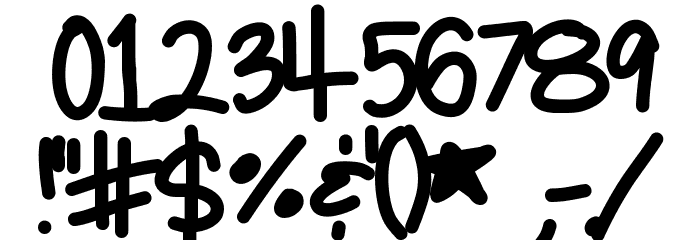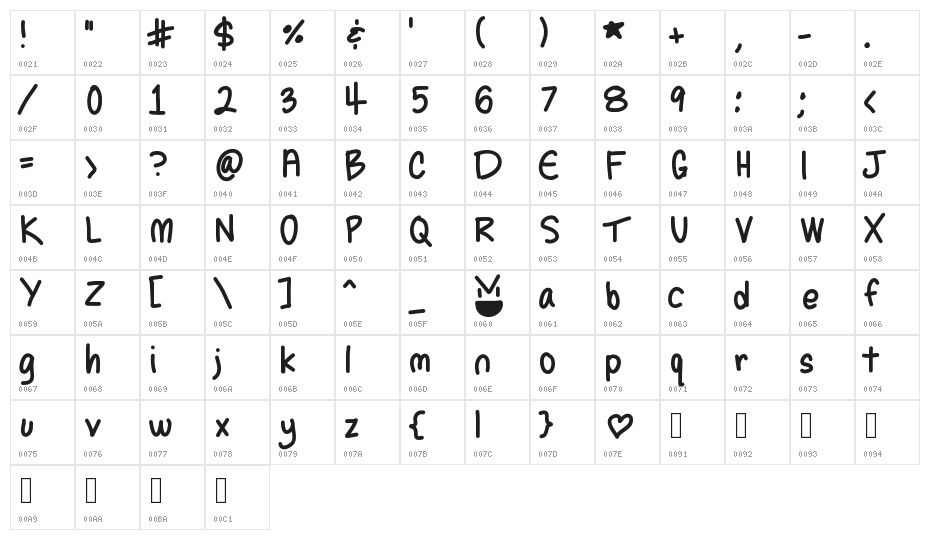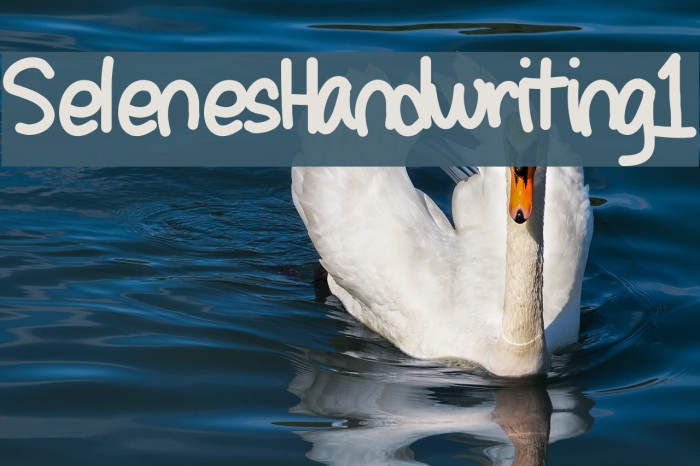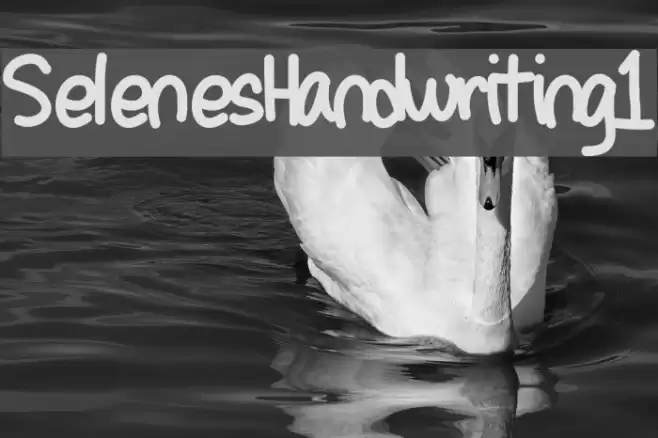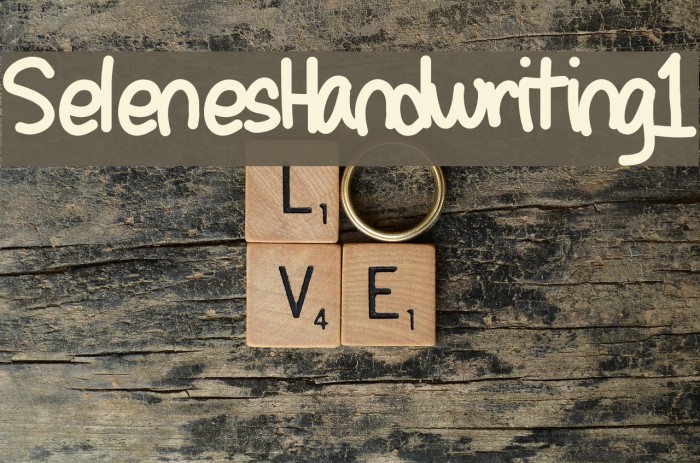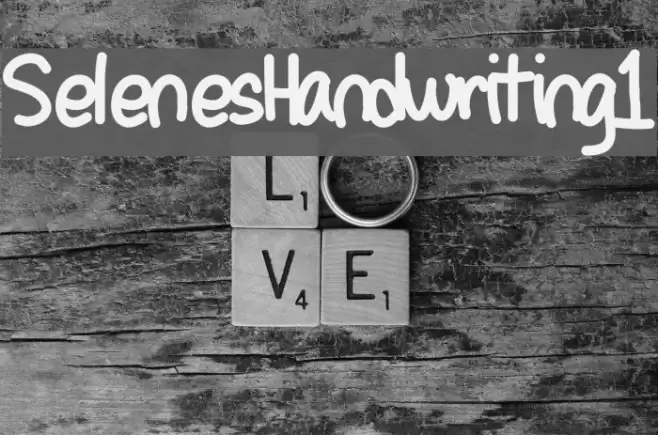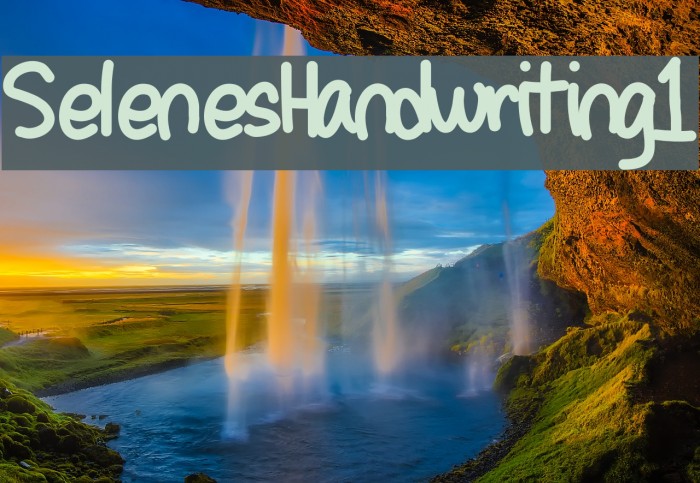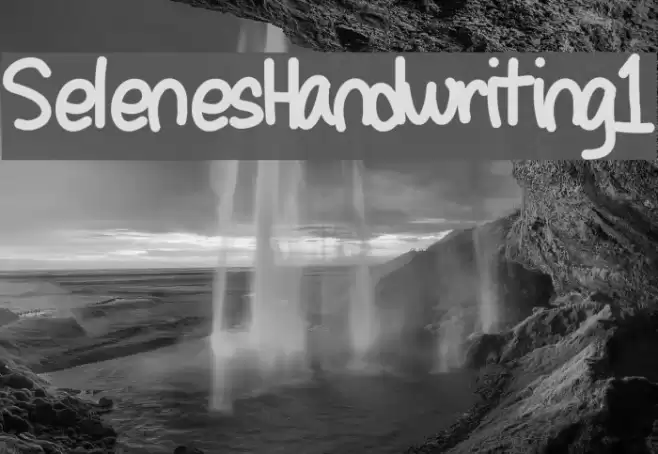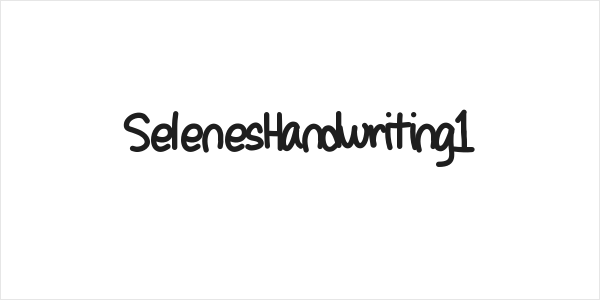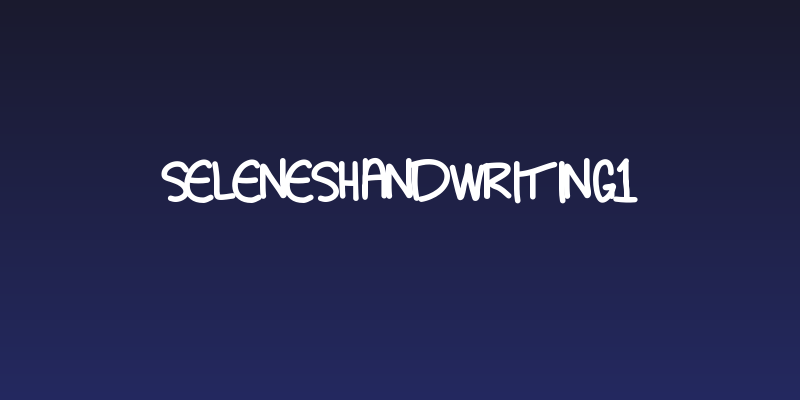
SelenesHandwriting1 Font
SelenesHandwriting1 Description
This font exudes a playful and informal handwritten style, characterized by its bold and rounded letterforms. The strokes are consistent in thickness, giving it a uniform appearance. The letters are slightly slanted, adding to the casual and friendly vibe. The uppercase and lowercase letters maintain a cohesive look, with rounded edges and a smooth flow. The numbers and special characters follow the same design principles, ensuring a harmonious overall appearance. This font is ideal for projects that require a personal touch, such as greeting cards, invitations, or casual branding.
| Use Case | Headlines, Logos, Informal text |
| Proposed Projects | Greeting cards, invitations, casual branding, children's books, personal notes. |